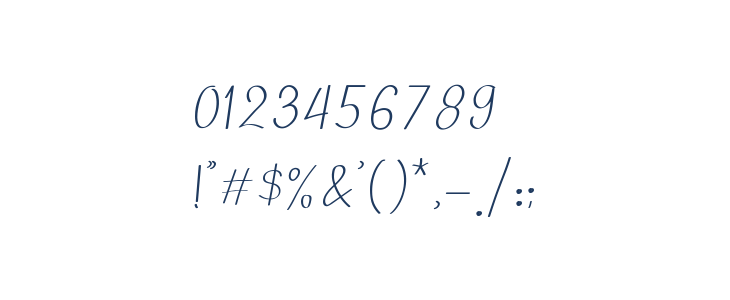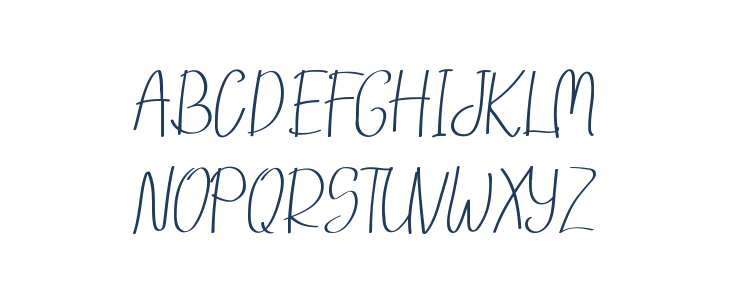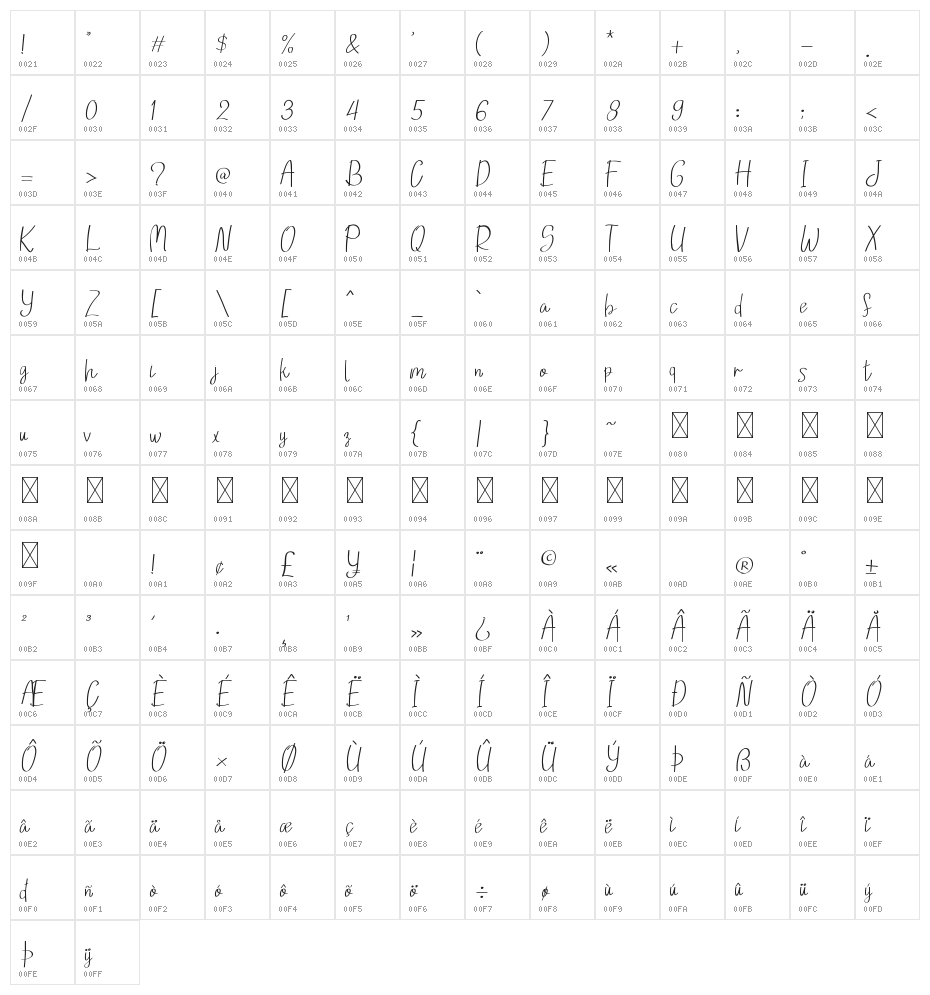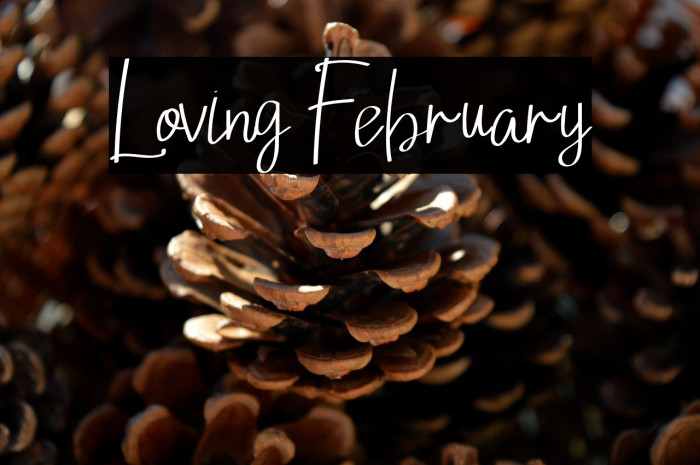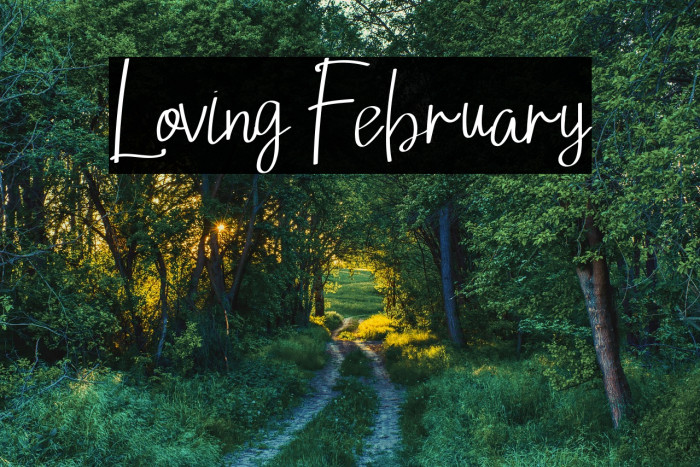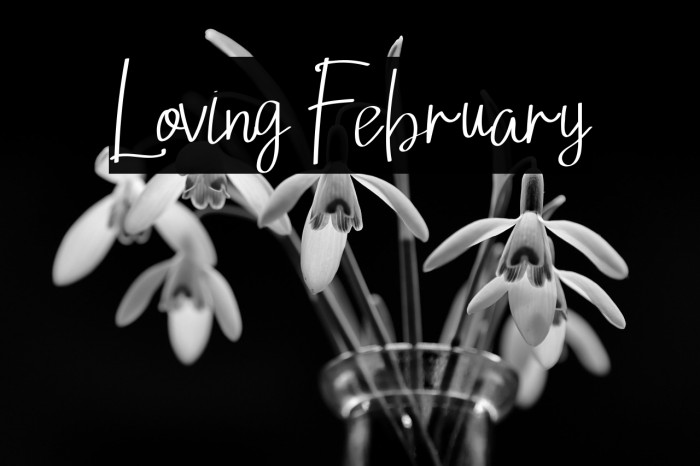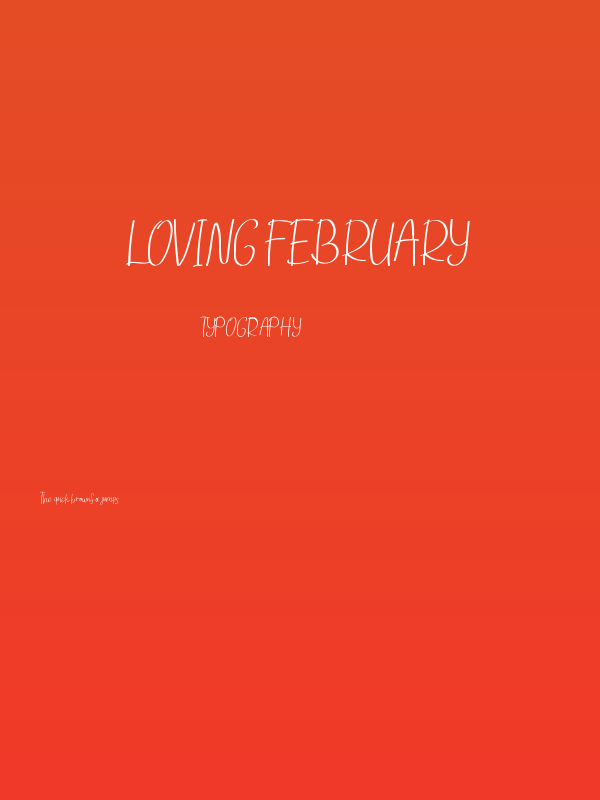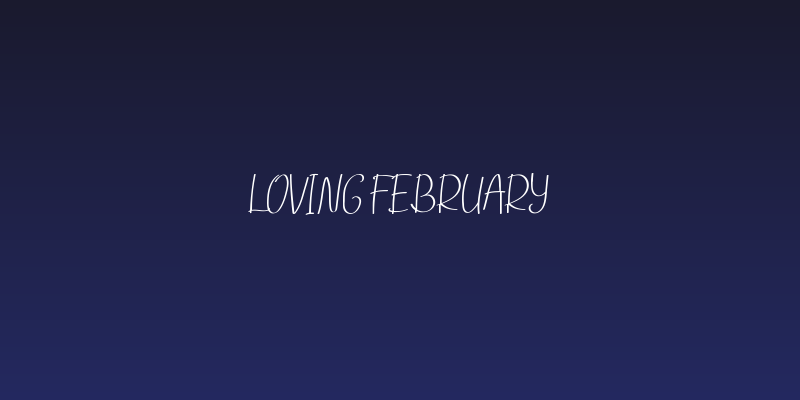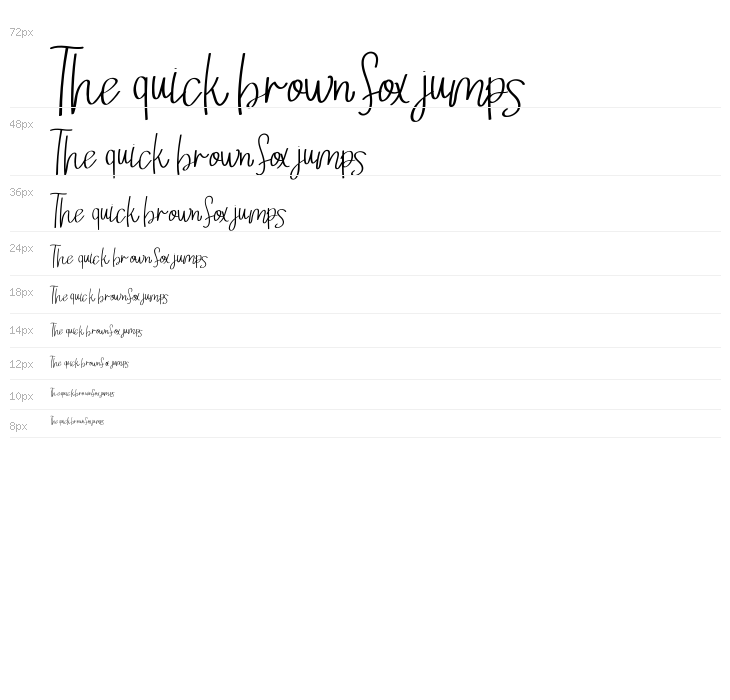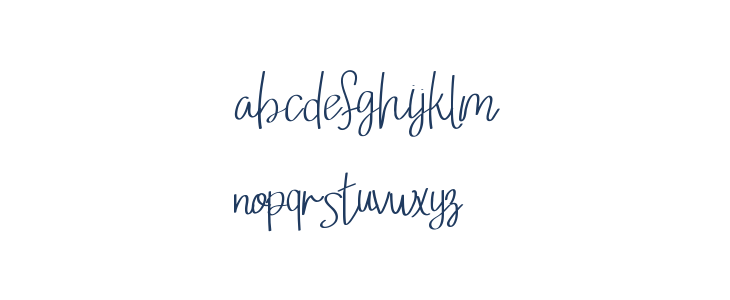
Loving February Font
Loving February Description
A playful, handwritten script font with tall, narrow letterforms and irregular, whimsical strokes. The characters have a casual, organic feel with varying baseline heights and a slightly uneven flow, giving it a personal and informal appearance.
| Overall Style | Decorative, Playful, Casual |
| Use Case | Logos, Headlines, Invitations, Social media graphics |
| Proposed Projects | Greeting cards, invitations, social media graphics, quotes, personal branding, event posters. |